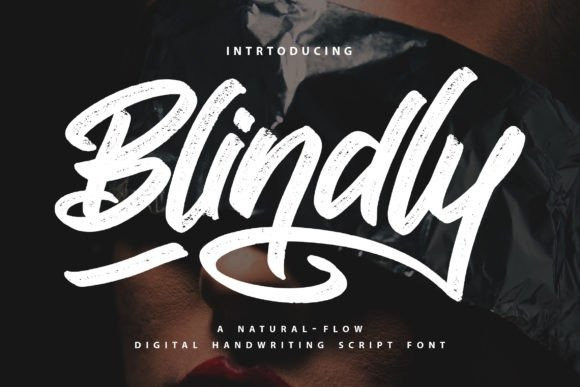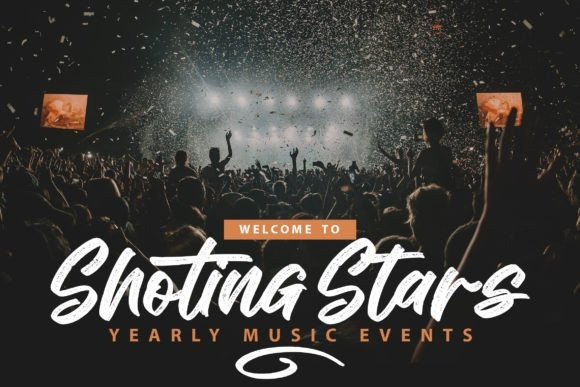
Blindly Font
Blindly is bold and assertive handwritten brush font. It maintains its classy calligraphic influences while feeling contemporary and fresh. Fall in love with it and bring your projects to the highest levels!